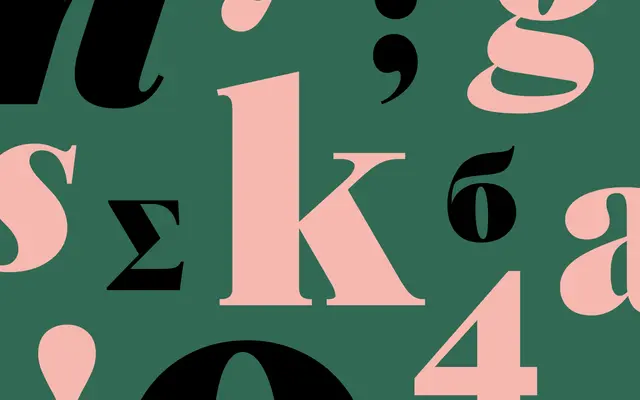
Nine Elms
Dalton Maag · Eduardo Renno, Franziska Hubmann, Natalia Qadreh
Nine Elms specimen from Dalton Maag
A transitional newspaper serif by Eduardo Renno, Franziska Hubmann and Natalia Qadreh, reinterpreting the Lardent and Morison Times design with optical sizes.
A transitional serif by Eduardo Renno, Franziska Hubmann and Natalia Qadreh that reinterprets the 1930s Times newspaper design by Victor Lardent and Stanley Morison. Roman and italic variable fonts each run a Weight axis from Hairline to Black plus Caption, Text, SubHead and Headline optical sizes, with small caps, oldstyle and lining numerals, ligatures and teardrop terminals. Built for editorial systems, newspapers and publishers wanting a Times-family voice with multilingual Cyrillic and Greek support.
Dalton Maag describe Nine Elms as their new interpretation of the classic 1930s transitional serif newspaper typeface designed by Victor Lardent and Stanley Morison, with Roman and Italic variable fonts featuring Optical Size and extensive Weight axes.